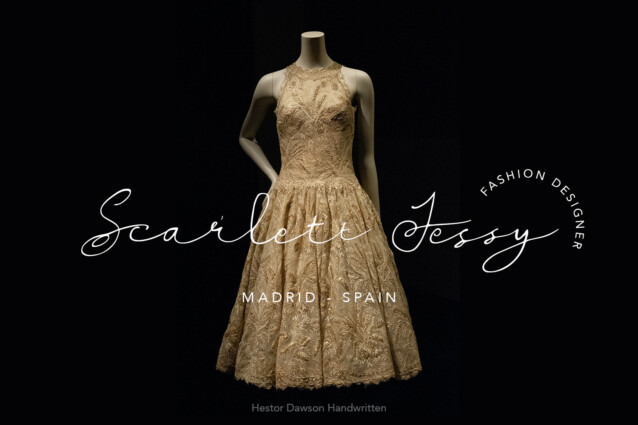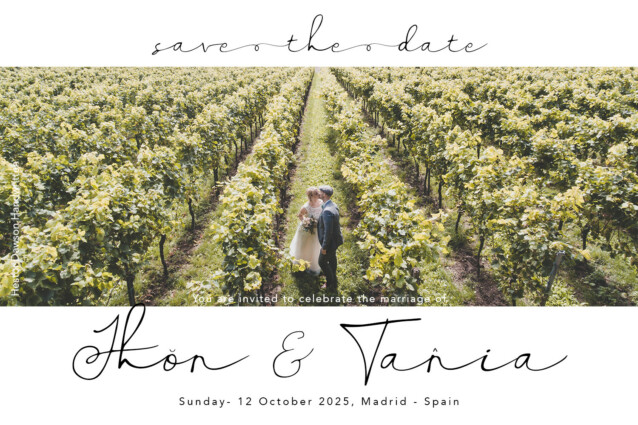
Hestor Dawson Font
Hestor Dawson Font is a realistic signature to give a incredible impression for all your project design come with more than 149 ligatures in each font to make everything look realistic handmade signature.